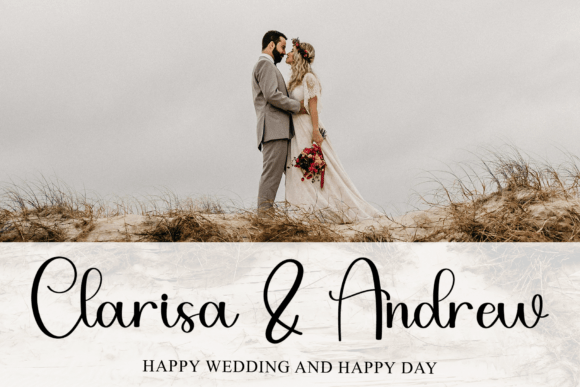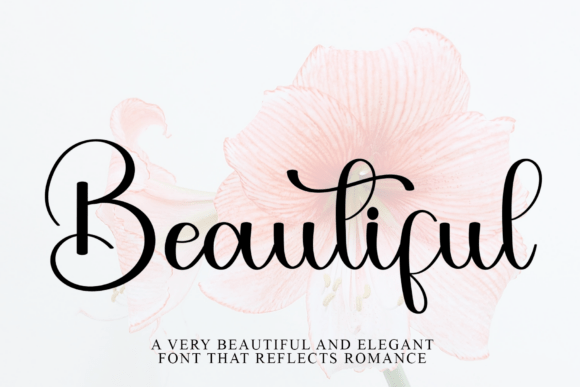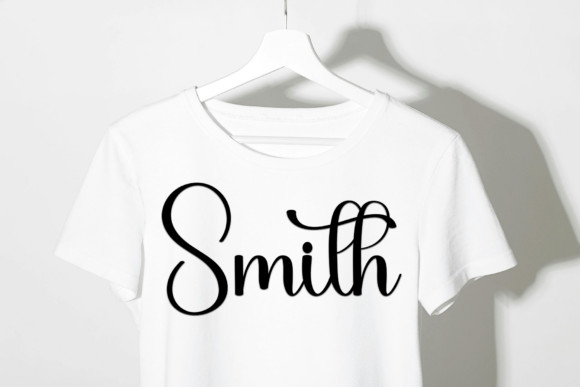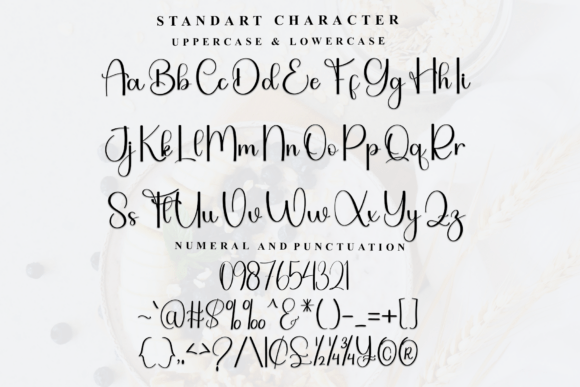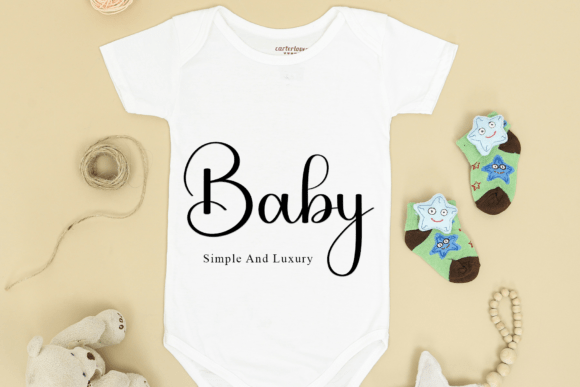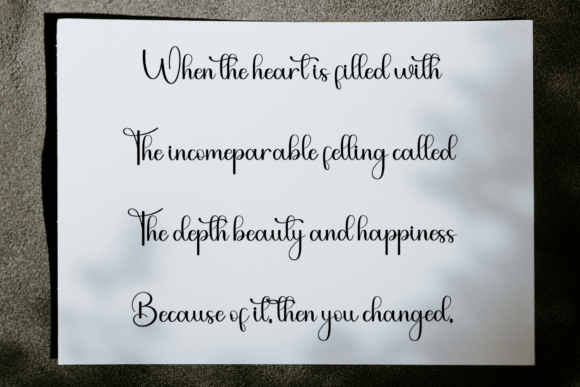
The Bushing Font: A Sweet and Friendly Companion for Your Designs
I’ll never forget the moment I stumbled upon the Bushing font. I was working on a project for a client’s wedding invitation, and I was struggling to find the perfect font that captured the warm and cozy vibe they wanted. As I scrolled through my font library, I came across Bushing, and it was love at first sight! Its natural, handwritten style and unique charm instantly won me over. In this article, I’ll share my experience with the Bushing font, its features, and how to make the most of it in your designs.
An Honest Review of Bushing Font
What I Love About Bushing Font
• ✨ Sweet and Friendly Style: Bushing’s handwritten style is perfect for creating warm and inviting designs.
• ✅ Versatility: This font can be used for a wide range of projects, from wedding invitations to branding and packaging.
• 💡 Unique Character: Bushing’s natural and unique style makes it stand out from other fonts.
• 👍 Ease of Use: The font is easy to read and works well in various sizes.
While Bushing is an amazing font, there are a few things to keep in mind:
• 🤔 Limited Formality: Bushing’s handwritten style may not be suitable for very formal or corporate designs.
• ⚠️ Kerning Issues: As with any font, you may need to adjust kerning for optimal results.
A Practical Guide to Using Bushing Font
The Story Behind Bushing Font
Bushing was designed with the intention of creating a friendly and approachable font. The designer aimed to craft a font that felt like a warm hug – something that would make readers feel welcome and included. With its natural, handwritten style, Bushing is perfect for designers who want to add a personal touch to their work.
Q: What type of designs is Bushing best suited for?
A: Bushing is versatile and can be used for a wide range of designs, including wedding invitations, branding, packaging, and more.
Q: Is Bushing a difficult font to read?
A: No, Bushing is an easy-to-read font, even at smaller sizes.
Q: Can I use Bushing with other fonts?
A: Absolutely! Bushing pairs well with many other fonts, so feel free to experiment and find your favorite combinations.